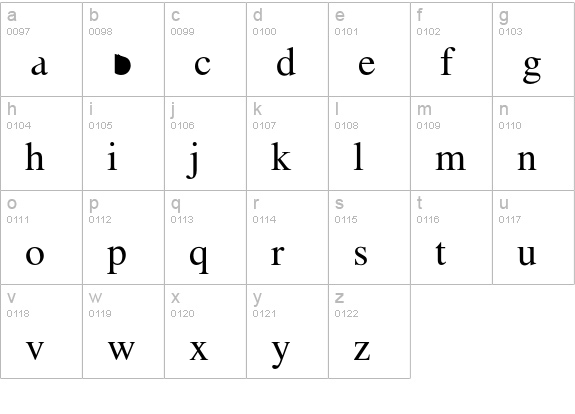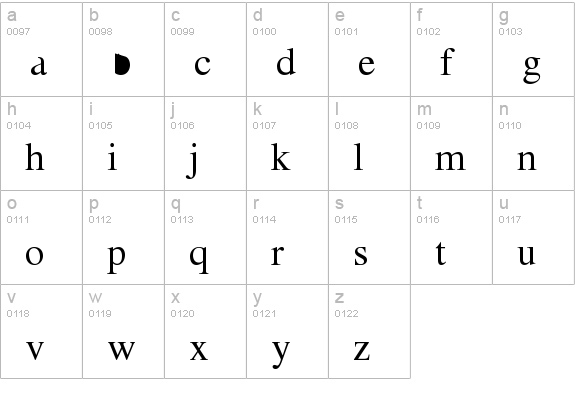
Masonic-Roman Font Details
Introducing the captivating Masonic-Roman font, a timeless typeface that seamlessly combines the elegance of Roman letterforms with the mystique and symbolism of Masonic artistry. This font exudes an air of sophistication and prestige, making it the perfect choice for projects that demand a touch of class. With its clean and crisp lines, Masonic-Roman font effortlessly captures the essence of ancient architectural design, paying homage to the rich history and secret traditions of the Freemasons. Each character is meticulously crafted to create a seamless harmony between the boldness of Roman typography and the intricate details of Masonic symbolism. Whether you're designing a logo for a prestigious organization, creating elegant invitations, or crafting a visually stunning publication, Masonic-Roman font adds a touch of regality and intrigue to any project. Its versatility allows it to effortlessly adapt to both traditional and contemporary designs, making it an essential asset for graphic designers, typographers, and creatives alike. But what truly sets Masonic-Roman font apart is its accessibility. This exceptional typeface is freely available to download at FontsMarket.com, ensuring that anyone can access its beauty and timelessness without any limitations. Its availability as a free font allows designers to explore their creativity and enhance their designs without worrying about budget constraints. Incorporate the Masonic-Roman font into your next project and experience the transformative power of its striking presence. Whether you're aiming to evoke a sense of mystery, elegance, or sophistication, this font is sure to captivate and inspire. Elevate your designs to new heights with Masonic-Roman font – a symbol of creativity, craftsmanship, and the freedom to create without boundaries.